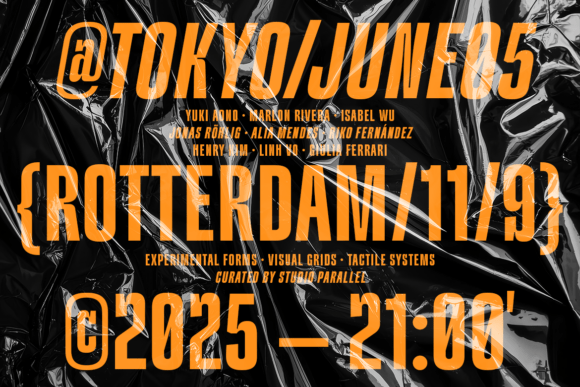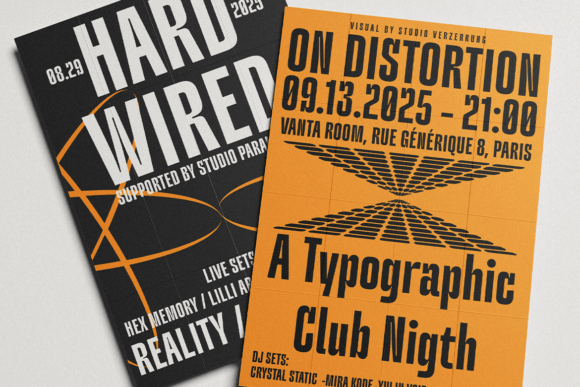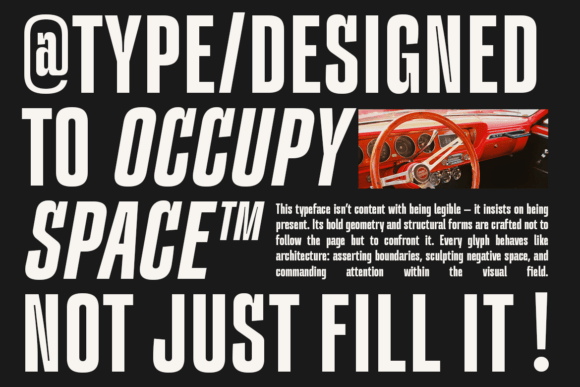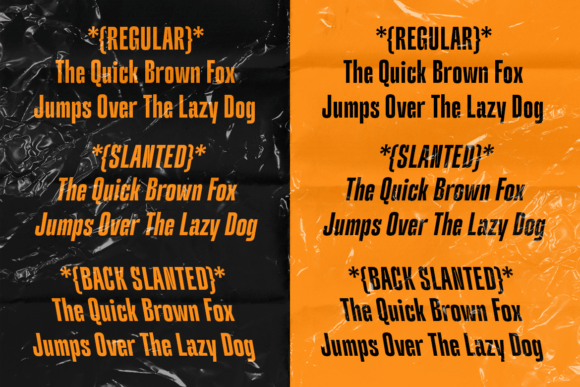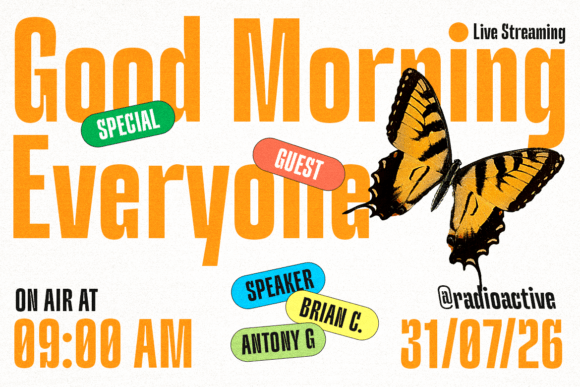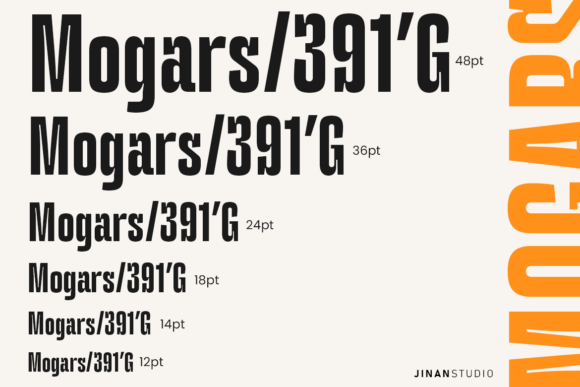
Introduction to Mogars Font
As designers, we’ve all been there – staring at a blank canvas, trying to convey a message that demands attention. The right font can make all the difference. For me, that moment came when I was working on a high-profile branding project, and I needed a font that would cut through the noise. That’s when I discovered Mogars Font – a game-changer in the world of sans serif fonts.
Mogars Font is a design resource that stands out from the crowd, offering a unique blend of style and functionality. With its bold, condensed strokes and tall, narrow letterforms, this font maximizes space without sacrificing style. Whether you’re working on a creative project that requires a confident voice or simply need a high-quality font for a transparent background, Mogars Font delivers a clean, assertive aesthetic that’s sure to impress.
Key Features of Mogars Font
- Mogars Font is a free design resource ideal for creative projects, offering a unique and stylish touch.
- It comes in a high-quality, transparent background design, making it perfect for use on various backgrounds.
- Mogars Font features a clean and modern design, suitable for a wide range of creative applications.
- This font is ideal for designers looking for a unique and stylish font to elevate their creative project.
Honest Review: Mogars Font
As a designer, I’m always on the lookout for high-quality design resources that can elevate my creative projects. Recently, I had the chance to try out the Mogars Font and here’s my honest review.
- ✨ Unique design aesthetic: The Mogars Font has a distinctive style that sets it apart from other fonts. Its quirky and playful feel makes it perfect for creative projects that need a bit of personality.
- ✨ High-quality design: The font is well-designed and feels premium, even though it’s a free download. This is a testament to the creator’s attention to detail and commitment to quality.
- ✨ Transparent background: The font’s transparent background makes it easy to work with, allowing for seamless integration with other design elements.
- ⚠️ Limited character set: One of the main limitations of the Mogars Font is its limited character set. While it’s perfect for short texts, it may not be suitable for longer blocks of text.
- ⚠️ Not suitable for formal projects: Due to its playful nature, the Mogars Font may not be the best choice for formal or professional projects. It’s better suited for creative and informal projects where a bit of personality is needed.
Overall, I’m impressed with the Mogars Font and its unique design aesthetic. While it has some limitations, it’s a great resource for designers looking to add some personality to their creative projects. If you’re looking for a high-quality, free font that’s perfect for playful projects, the Mogars Font is definitely worth checking out.
Mogars Font
Mogars Font is a free, high-quality design resource ideal for creative projects that require a unique touch. Its transparent background makes it easy to use in various design applications.
Mogars Font is ideal for use in a variety of creative projects, including:
- Typography projects
- Branding and identity design
- Print and digital media